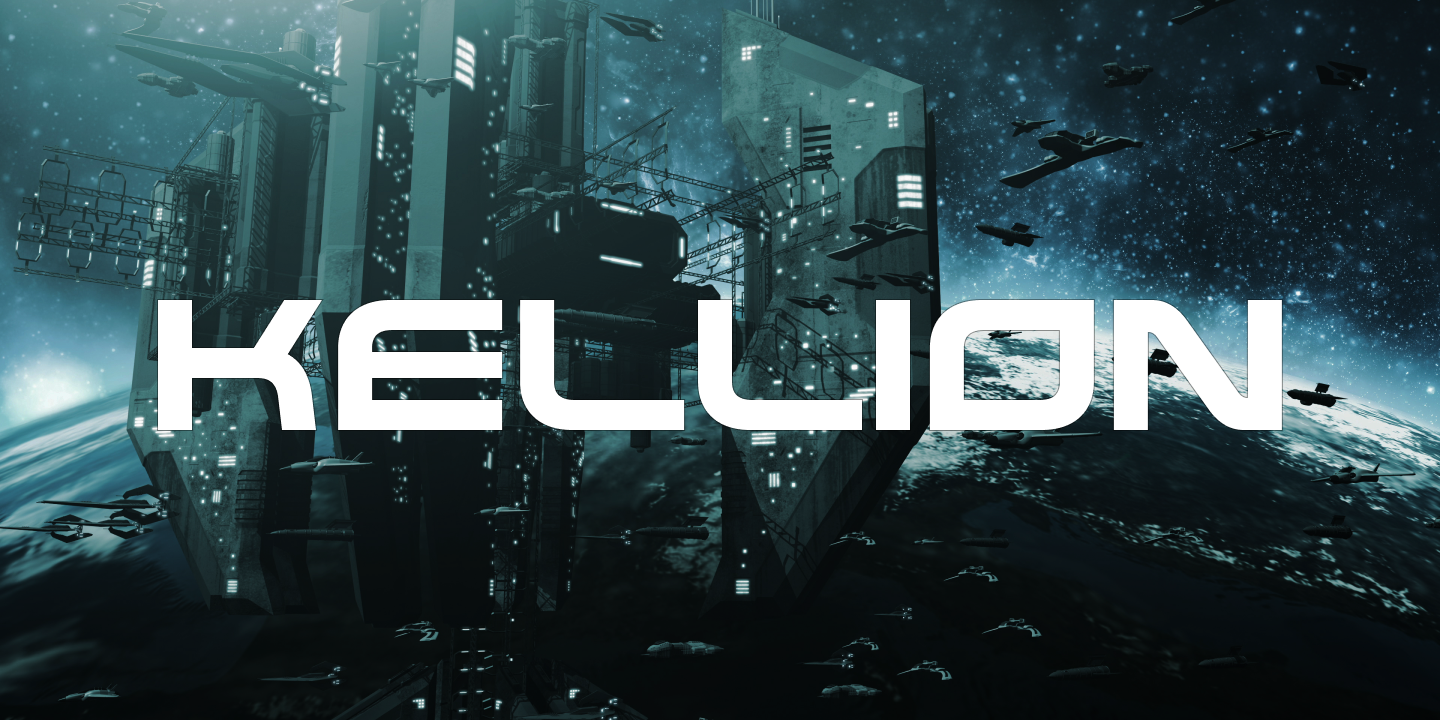
Kellion Font is perfect for modern tech startup branding, innovative digital products, contemporary web interfaces, cutting-edge app designs, progressive business communications, forward-thinking marketing campaigns, sleek product launches, and advanced technology presentations. This dynamic typeface excels in applications requiring technological innovation and modern sophistication that captures the essence of digital advancement and contemporary business excellence through streamlined visual character and progressive appeal.
What makes Kellion Font exciting is its technological sophistication that perfectly captures the essence of digital innovation and modern business advancement through precisely engineered letterforms. The font features contemporary character construction with tech-inspired proportions and innovative styling that instantly conveys themes of progress, technology, and modern excellence perfect for brands positioning themselves at the forefront of digital transformation and contemporary market leadership.
The Kellion Font family includes progressive weights and technological variations with innovation-focused styling elements, offering designers comprehensive tools for creating sophisticated modern compositions. The family provides consistent technological aesthetic with varying innovation levels for versatile digital communications and contemporary branding projects requiring genuine progressive character and modern technological appeal.
The innovatively crafted letterforms of Kellion Font ensure optimal performance across all digital platforms while maximizing technological charm and modern sophistication, making it ideal for tech company branding, digital product marketing, and contemporary business communications. This progressive typeface combines technological heritage with contemporary design standards for outstanding performance in modern environments requiring authentic innovation character and sophisticated technological presence.